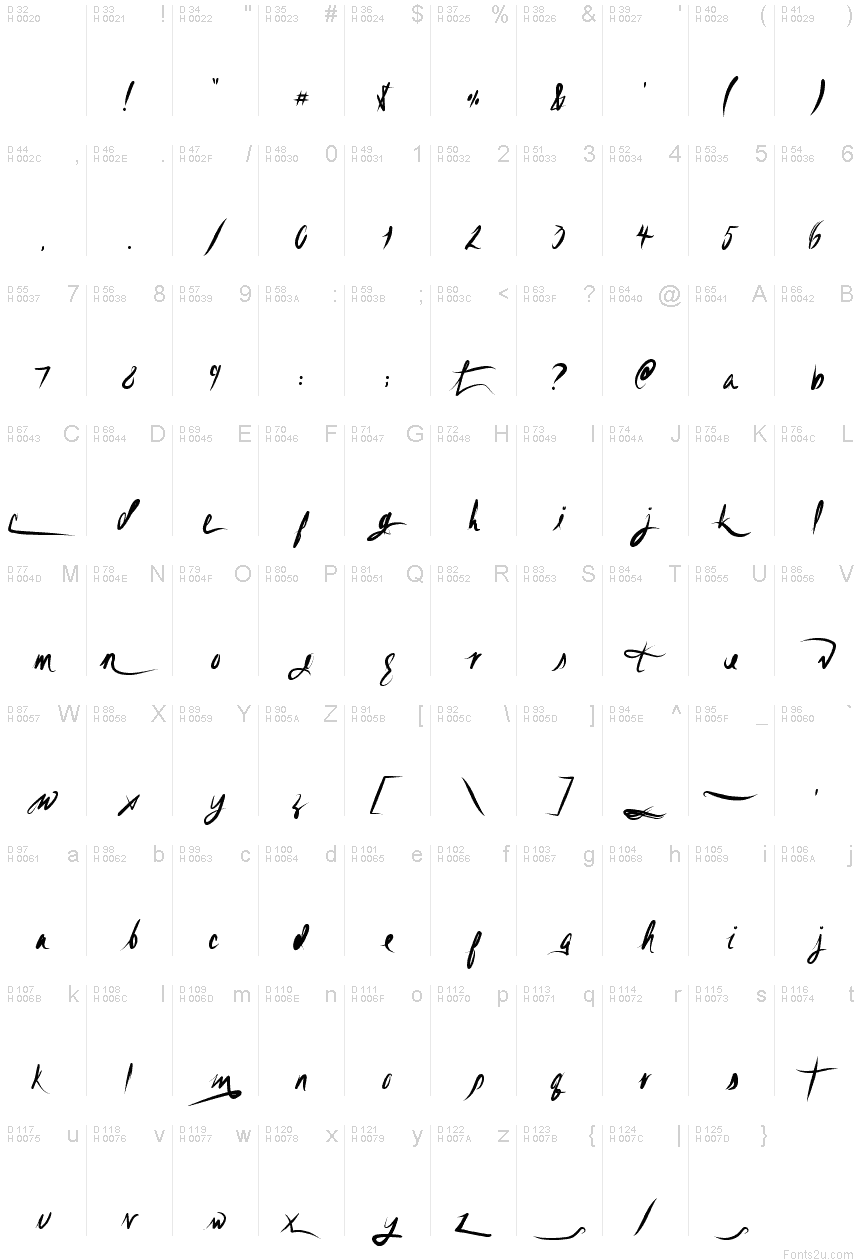
Unfolding Tragedy Clean by Dirt2 is a free calligraphic script with forceful thick-to-thin strokes and sharply tapered ends. Its tall loops and long sweeping joins create a fast forward pull across the lettering. Several strokes overlap with an almost tangled intensity.
Fashion photography and dramatic illustration can use these ribbon-like forms as part of the image rather than as a quiet caption, making the font apt for magazine covers, event posters, and music artwork. In packaging or theatrical branding, the extended curves can echo fabric, smoke, or gestural linework and turn a wordmark into a highly expressive graphic element.
Presentazione e campione visivo del carattere Unfolding Tragedy Clean
Mappa dei caratteri di Unfolding Tragedy Clean
Mappa dei caratteri di Unfolding Tragedy Clean: Latino di base, pagina 1
Glifi del carattere Unfolding Tragedy Clean — Latino di base, pagina 1